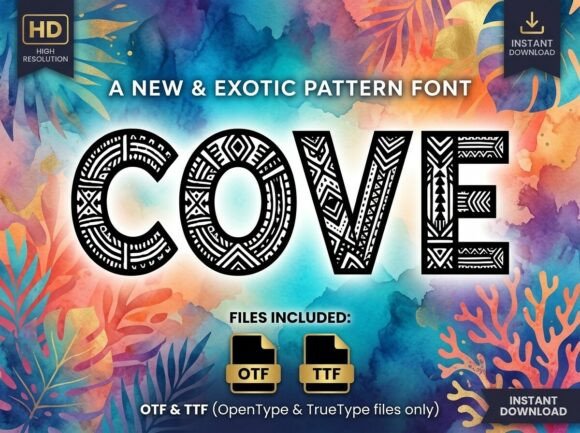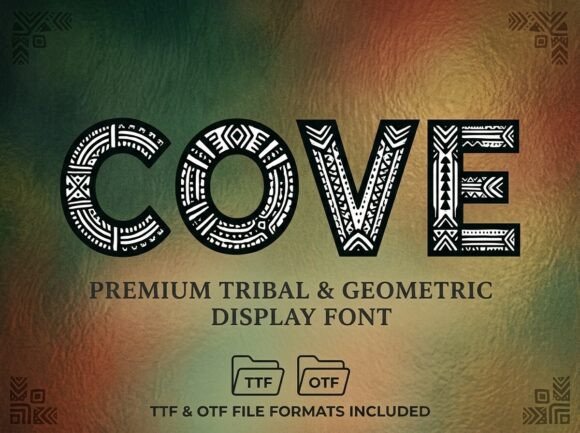
Unleash the Power of Cove Font: A Premium Decorative Display Typeface
Embark on a visual journey with Cove, a stunning decorative display font that seamlessly blends intricate tribal artistry with a bold, modern silhouette. This premium typeface is designed to make a statement, featuring a massive, geometric sans-serif structure that is as eye-catching as it is versatile.
A Canvas of Complex Patterns
What sets Cove apart is its unique approach to typography. Each character serves as a canvas for complex, hand-drawn ethnic patterns, including chevrons, geometric diamonds, and rhythmic line work. This attention to detail creates a truly one-of-a-kind visual identity that radiates a sense of ancient heritage and adventurous global style.
Cove is an extraordinary choice for a wide range of creative projects, from travel and tourism branding to cultural event posters, high-impact editorial covers, and artisanal product packaging. Its bold, geometric structure and intricate patterns evoke a sense of timeless design, making it perfect for designers and crafters looking to add a touch of sophistication and elegance to their work.
Key Features of Cove Font
- Massive, geometric sans-serif structure: A bold and eye-catching design that commands attention.
- Intricate, hand-drawn ethnic patterns: Unique and complex designs that add a touch of cultural heritage to your work.
- Chevrons, geometric diamonds, and rhythmic line work: A range of patterns to choose from, ensuring your design stands out.
- Ancient heritage and adventurous global style: A perfect blend of traditional and modern design elements.
Why Choose Cove Font?
Cove delivers a sense of unyielding professional presence and legendary artisanal beauty to your visual identity, ensuring every word feels like a curated artifact of timeless design. With Cove, you can:
- Elevate your brand: Create a lasting impression with a unique and memorable visual identity.
- Add a touch of sophistication: Bring a sense of elegance and refinement to your design.
- Stand out from the crowd: With its bold and intricate patterns, Cove is sure to set your design apart.
Tips for Using Cove Font
To get the most out of Cove, here are a few tips to keep in mind:
- Use it sparingly: Cove is a bold and eye-catching font, so use it sparingly to avoid overwhelming your design.
- Experiment with colors: Try pairing Cove with different colors to create a unique and eye-catching visual identity.
- Mix and match: Combine Cove with other fonts to create a truly one-of-a-kind design.
Cove is a premium decorative display font that is sure to make a statement. With its intricate tribal artistry, bold geometric structure, and unique character, it’s the perfect choice for designers and crafters looking to add a touch of sophistication and elegance to their work. Whether you’re working on a travel brochure, cultural event poster, or artisanal product packaging, Cove is the perfect choice for creating a lasting impression.